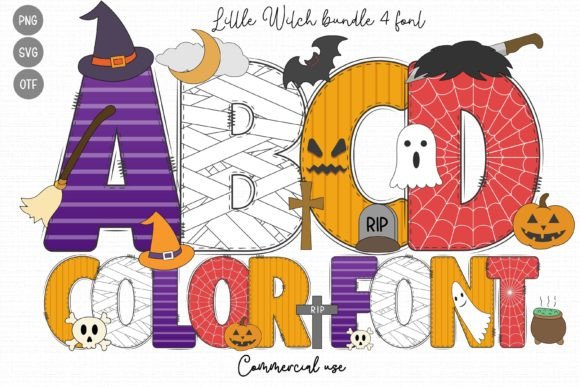
Welcome to the enchanting world of Little Witch Font, where magic and creativity intertwine to cast a spell on your designs. This captivating font family, meticulously crafted by the visionary Phongsakon Phonkhammak, is the ultimate expression of Halloween-styled typography, ready to transport your imagination to a realm of spooky wonder.
Step into the realm of Little Witch Font, where ghoulish charm and vibrant colors collide to create a visual symphony that will leave you spellbound. Each letter, punctuation mark, and symbol in this font family is a masterpiece of digital artistry, brimming with personality and character. The intricate details, playful curves, and eye-catching colors of Little Witch Font will cast a bewitching spell on your creative projects, transporting you to a world of spooky enchantment.
Whether you're crafting invitations for a spine-tingling Halloween party, designing posters for a haunted house, or simply adding a touch of eerily delightful charm to your digital designs, Little Witch Font is the perfect companion. Its versatility extends beyond the realm of Halloween, as it also brings a touch of whimsy to horror and cute-themed projects, making it an indispensable tool for designers seeking to create captivating and unforgettable designs.
Unleash your creativity and let Little Witch Font cast its charm on your next project. Experience the joy of watching your ideas take on a life of their own as this font family weaves its magic, transforming ordinary words into captivating spells that dance across the page. Little Witch Font is more than just a font; it's a gateway to a world of imagination and creativity, where your ideas will flourish under its enchanting spell.
But beware, dear adventurer, for the power of Little Witch Font is not to be underestimated. Its captivating allure may enchant you so deeply that you find yourself lost in a world of creative obsession, your mind forever ensnared by its enchanting embrace. Approach this font with caution, for it may unlock a wellspring of inspiration that will haunt you with its boundless possibilities.